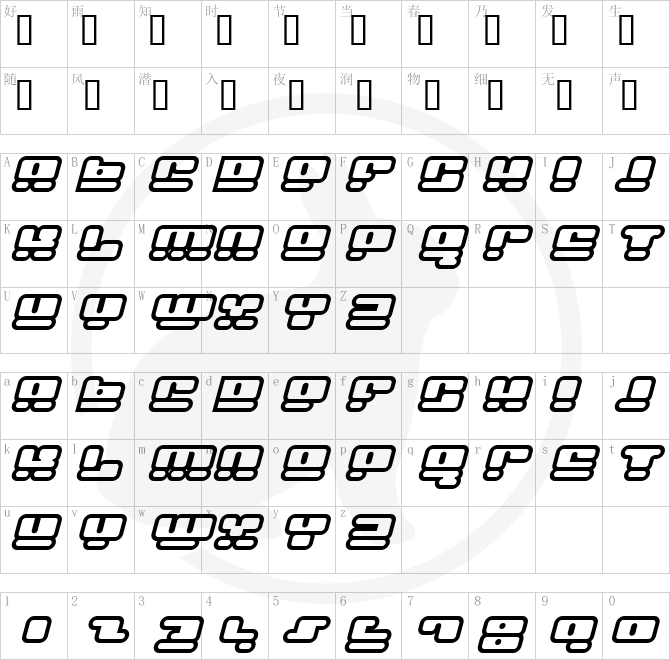
- Font Name:Face plant hollow 2
Face-plant-hollow-2-Italic.ttf is a very beautiful artistic font, Face-plant-hollow-2-Italic.ttf is widely used in the design and printing of various books and pictures,Face-plant-hollow-2-Italic.ttf has a strong visual impact,Face-plant-hollow-2-Italic.ttf is a commonly used font in newspapers, magazines and books, and is used in posters, e-commerce Poster design, store design, logo design, font design and other fields.Face-plant-hollow-2-Italic.